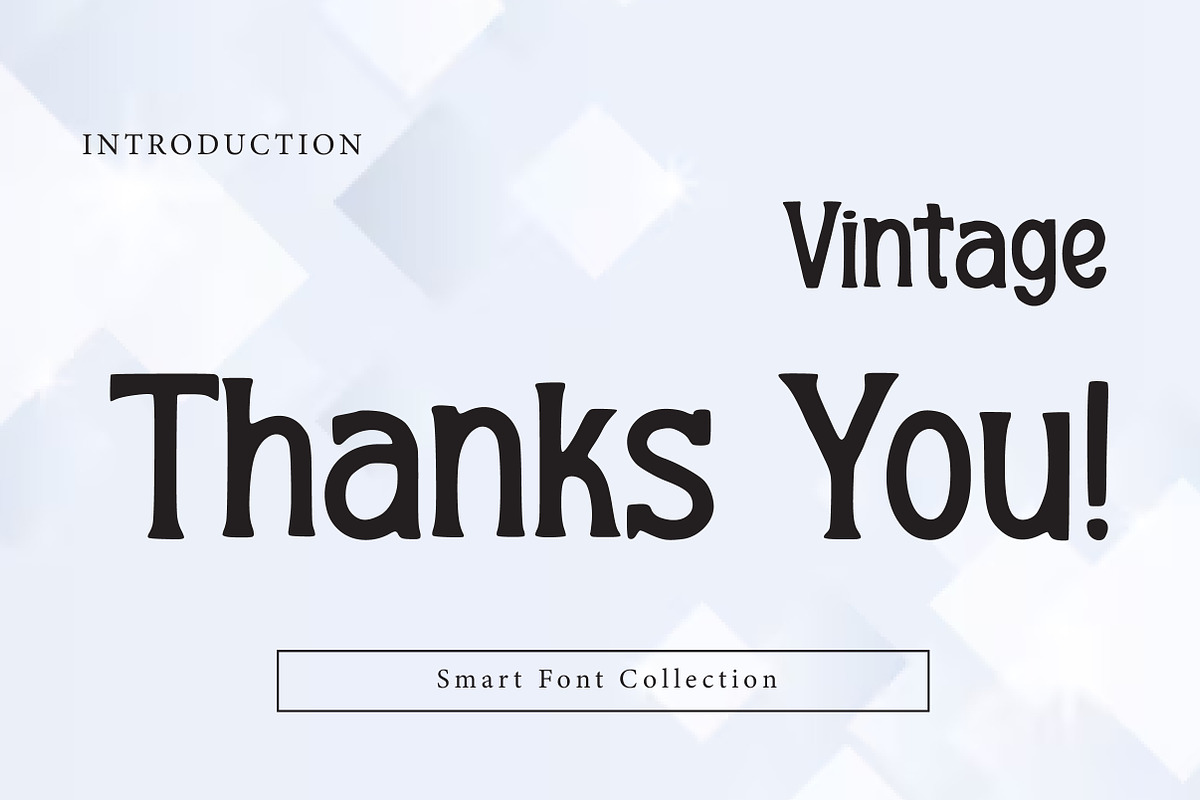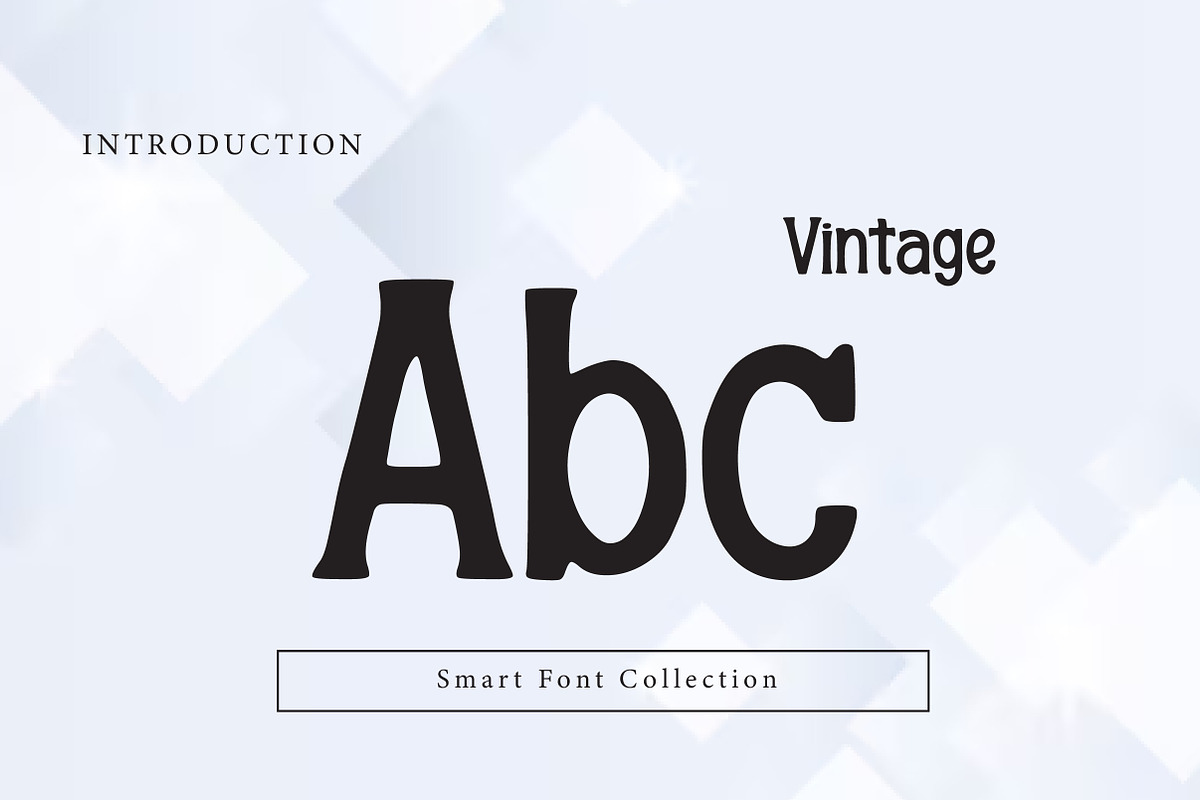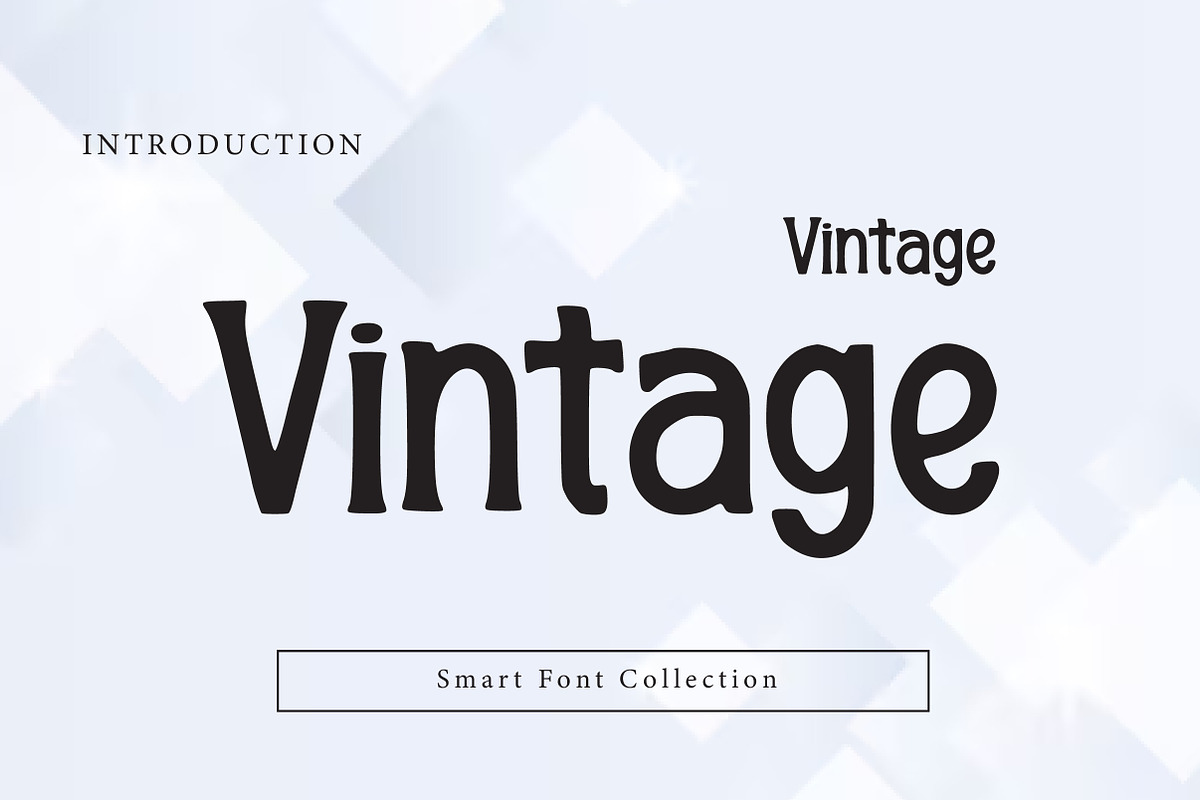
Vintage
Vintage is a bold and charming serif typeface inspired by classic retro typography and old-school print design. With its strong letterforms, soft curves, and nostalgic character, this font brings an authentic vintage feel to any project.
Perfect for retro logos, posters, labels, packaging, branding, signage, apparel, and editorial designs, Vintage delivers warmth, personality, and timeless appeal. Its handcrafted look makes it ideal for designs that aim to capture heritage, nostalgia, and classic style while remaining clear and readable in both print and digital use.
Vintage is a great choice for designers who want to create bold, memorable, and retro-inspired typography with a modern touch.